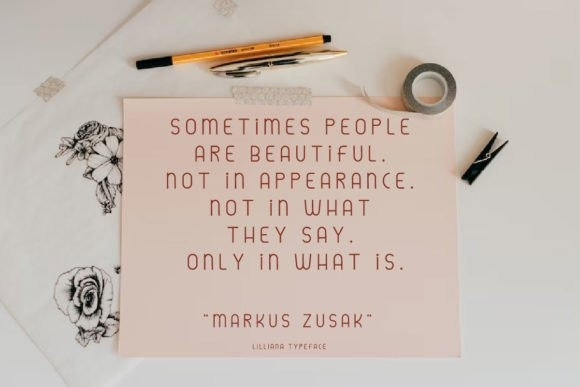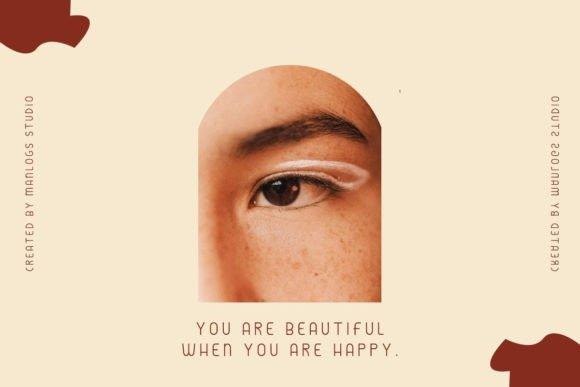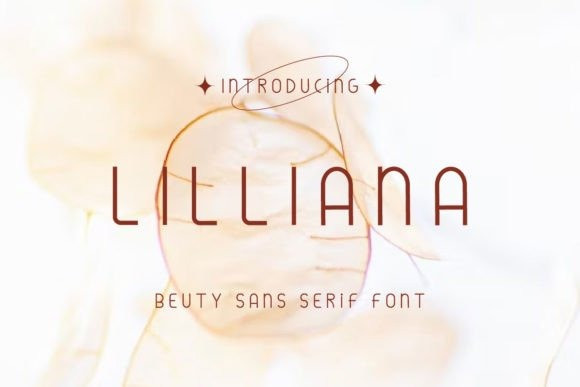
Lilliana Font
Lilliana Font is a unique, classy and simple serif typeface .This font is modern and nostalgic and suitable for logos, beauty products, social media, weddings and more. Perfect for those who need a touch of elegance, style and modernity for your designs.